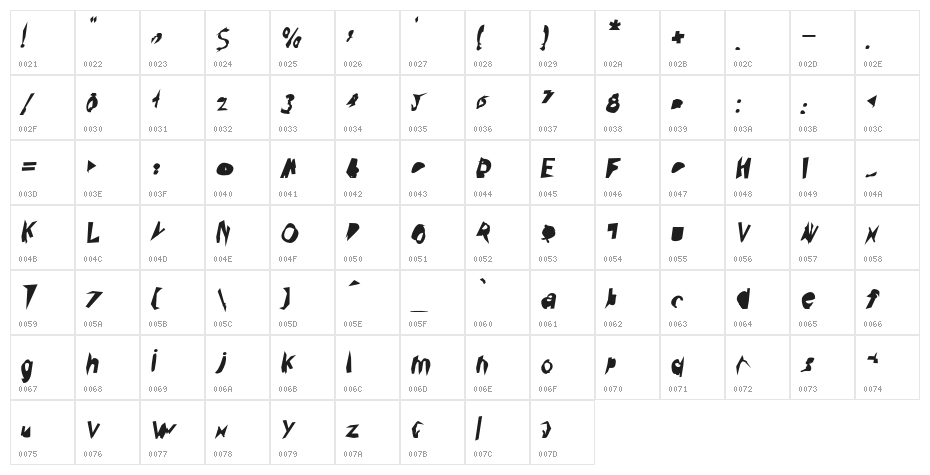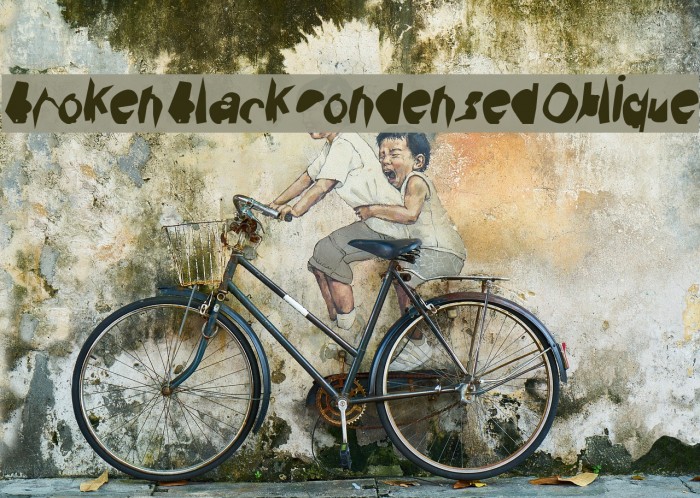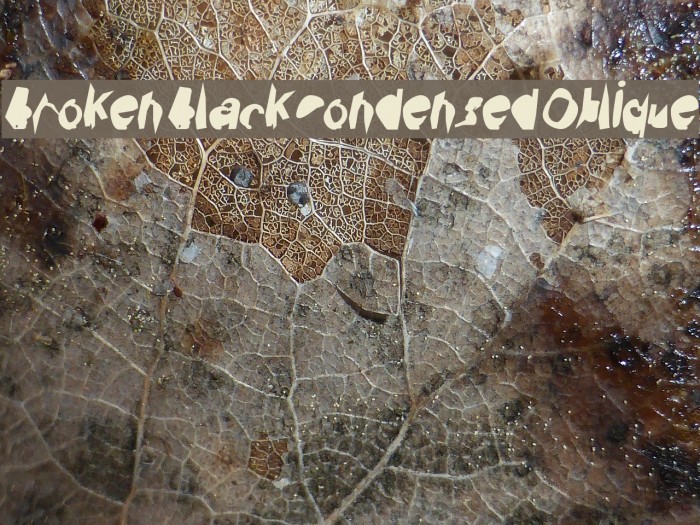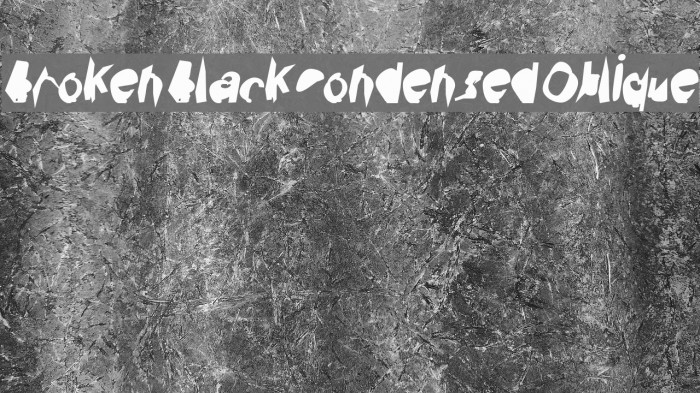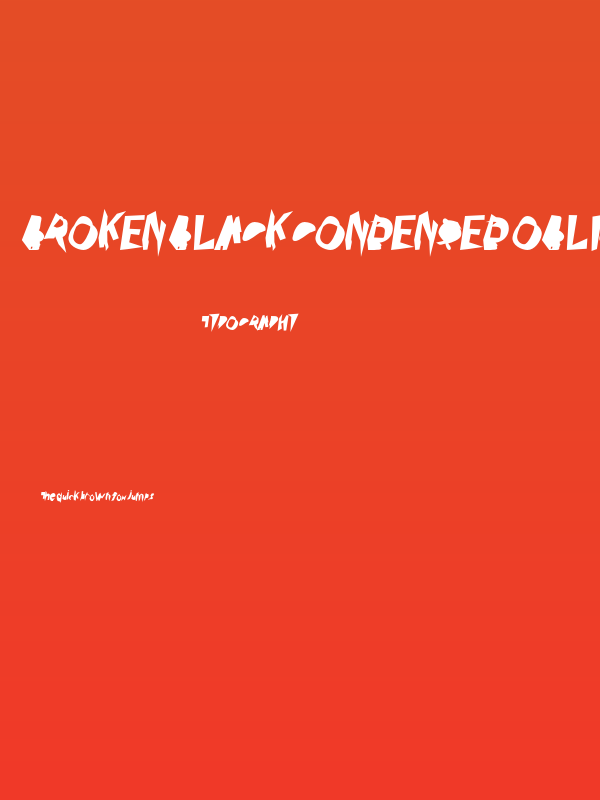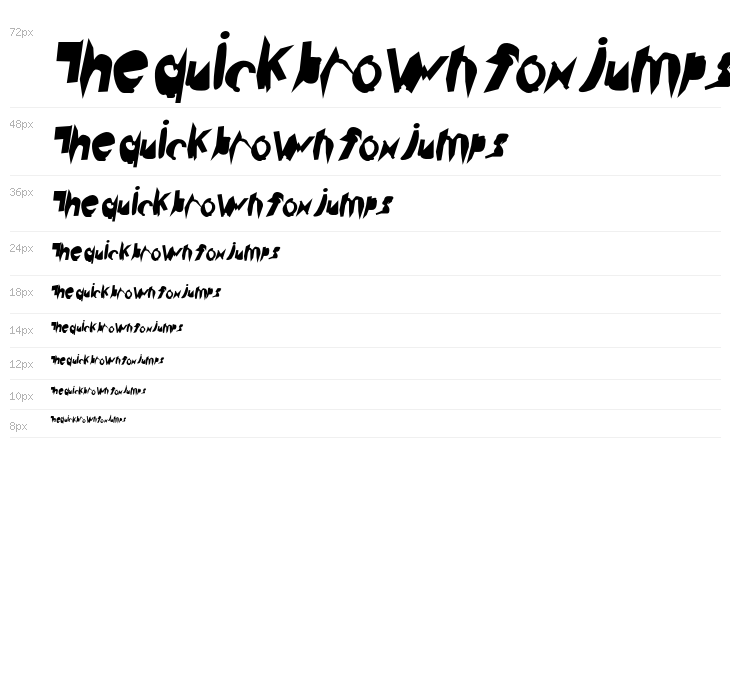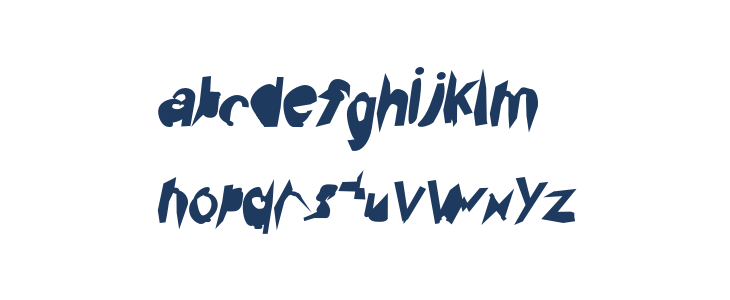
Broken Black Condensed Oblique Font
Broken Black Condensed Oblique Description
This font exhibits a highly stylized and abstract design, characterized by its jagged and angular letterforms. The characters are condensed and oblique, giving them a dynamic and edgy appearance. The strokes are bold and irregular, creating a sense of movement and energy. The font's unique style makes it stand out, with each letter having a distinct and unconventional shape. The numbers and special characters follow the same design principles, maintaining consistency across the entire set. This font is ideal for projects that require a bold and artistic touch.
Proposed ProjectsIdeal for album covers, posters, street art, and edgy branding projects.